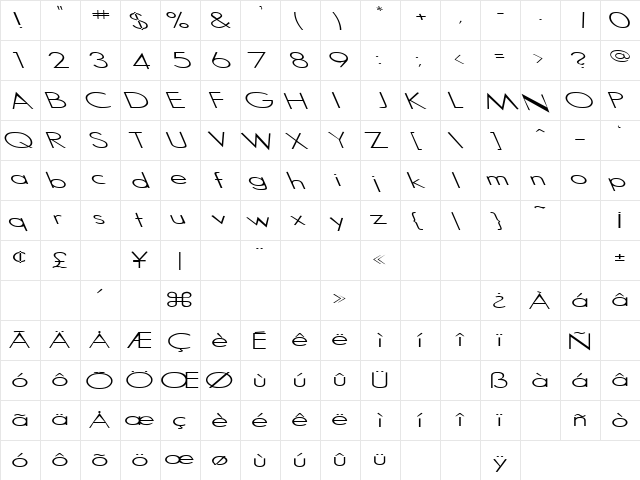
Loving 21 Regular
Design Context for Loving 21 Typeface
Loving 21 offers clean, dependable letterforms without strong stylistic allegiance, making it a practical choice for designers who need flexibility.
Pro Tip: Use Loving 21 in both headline and body roles to test its range before committing to a single application.